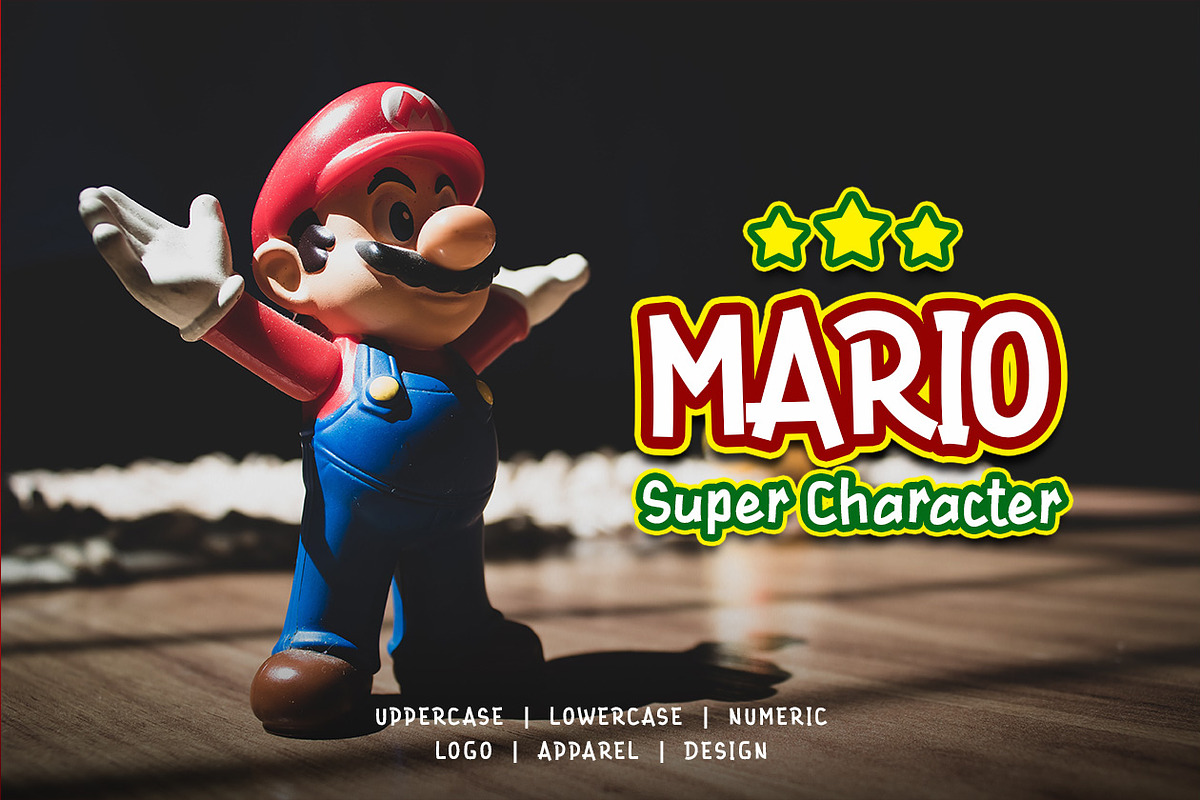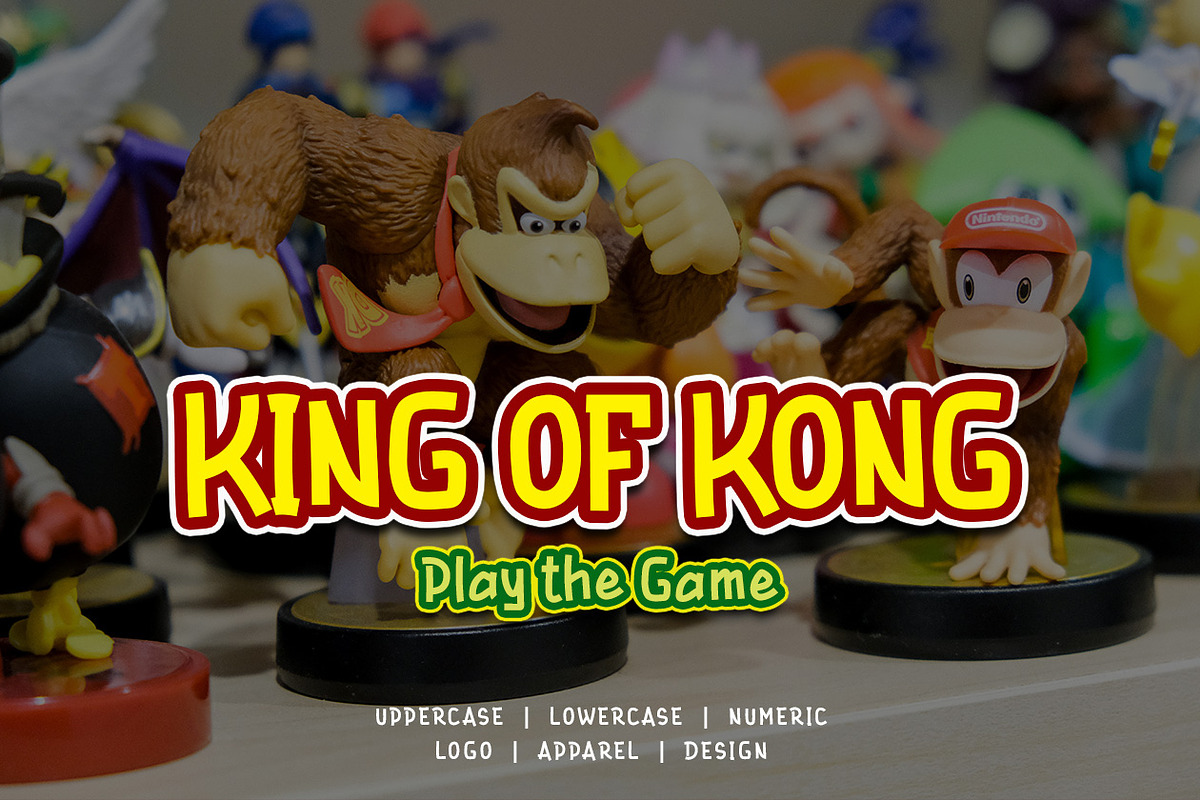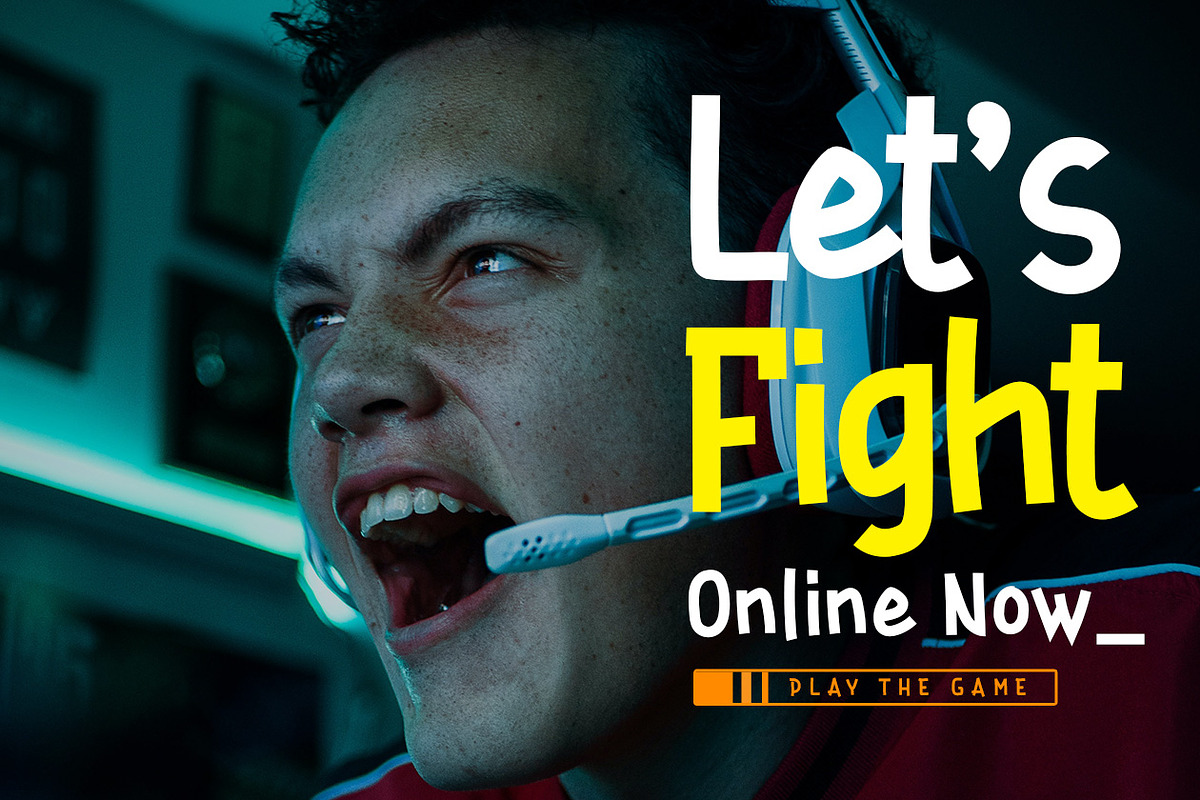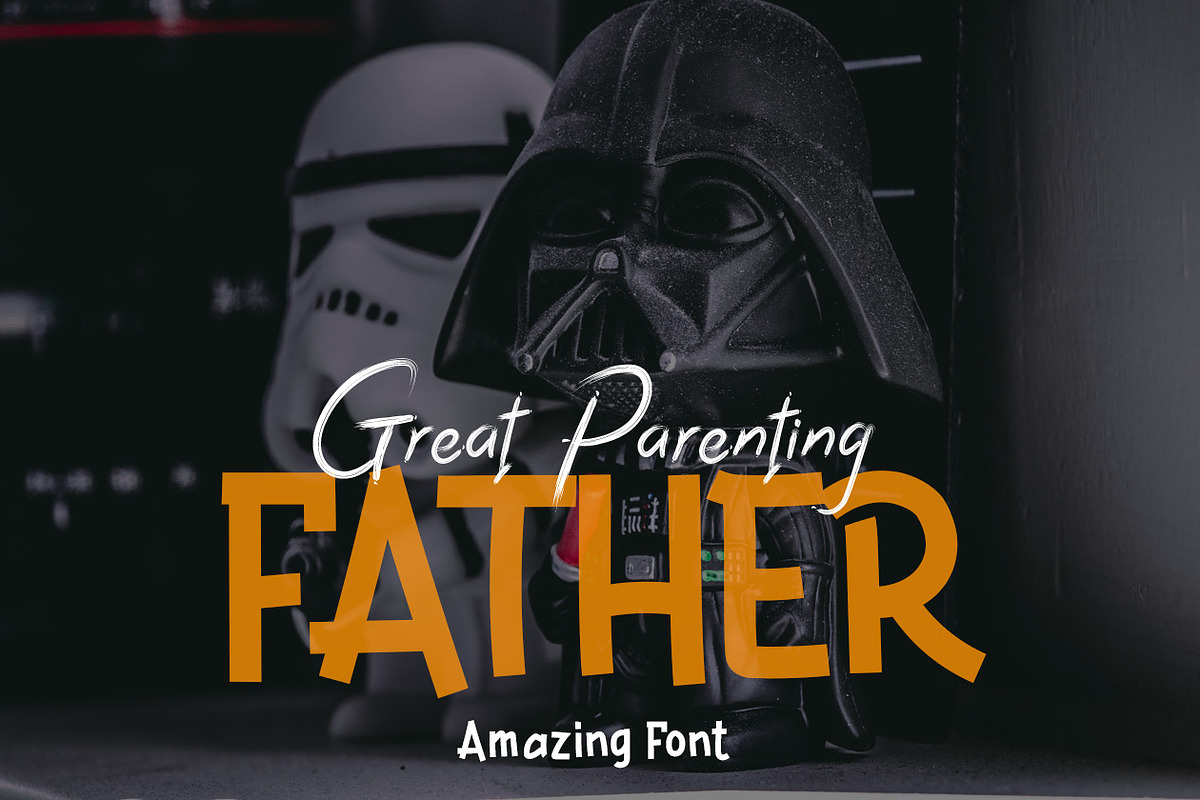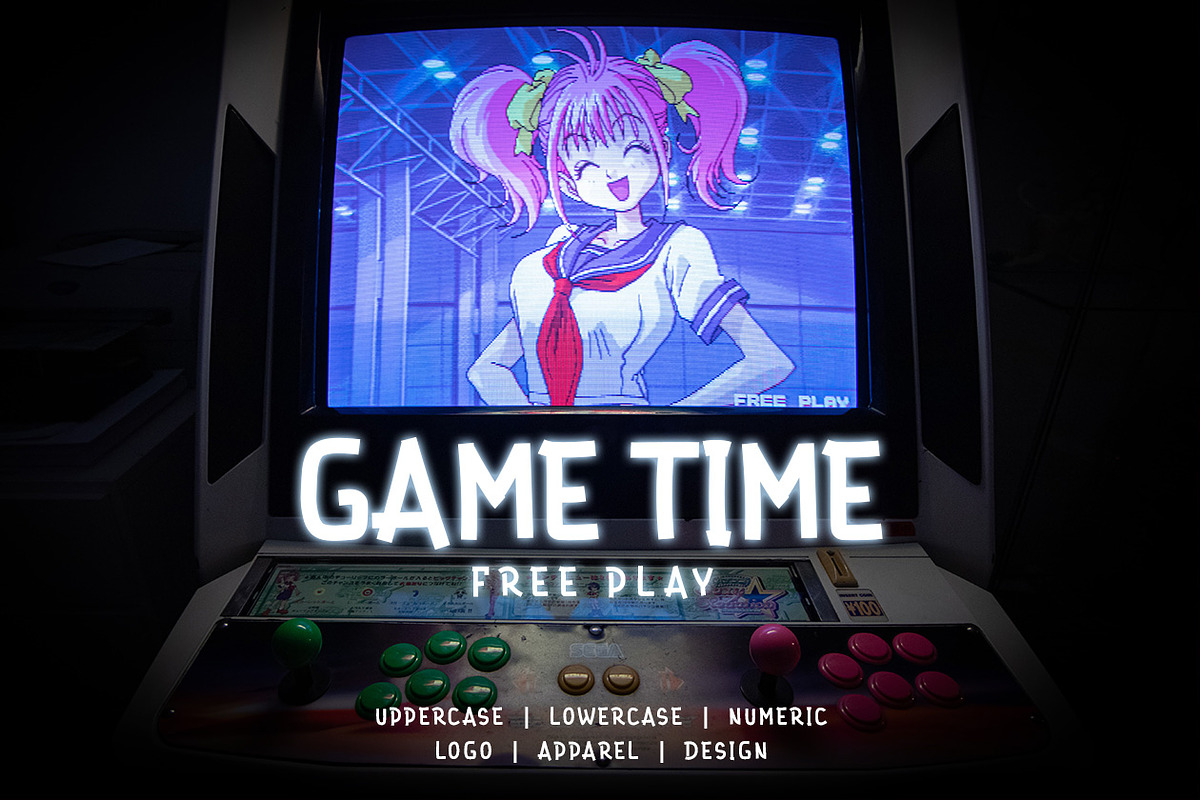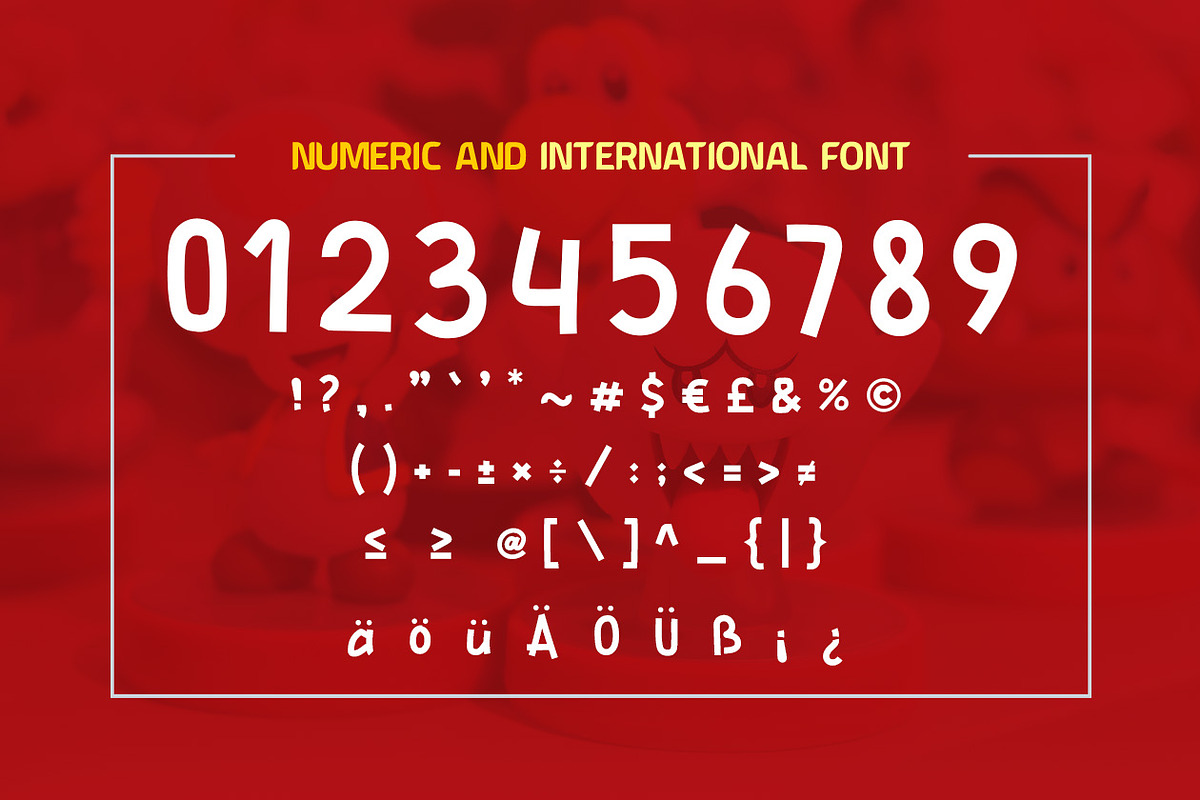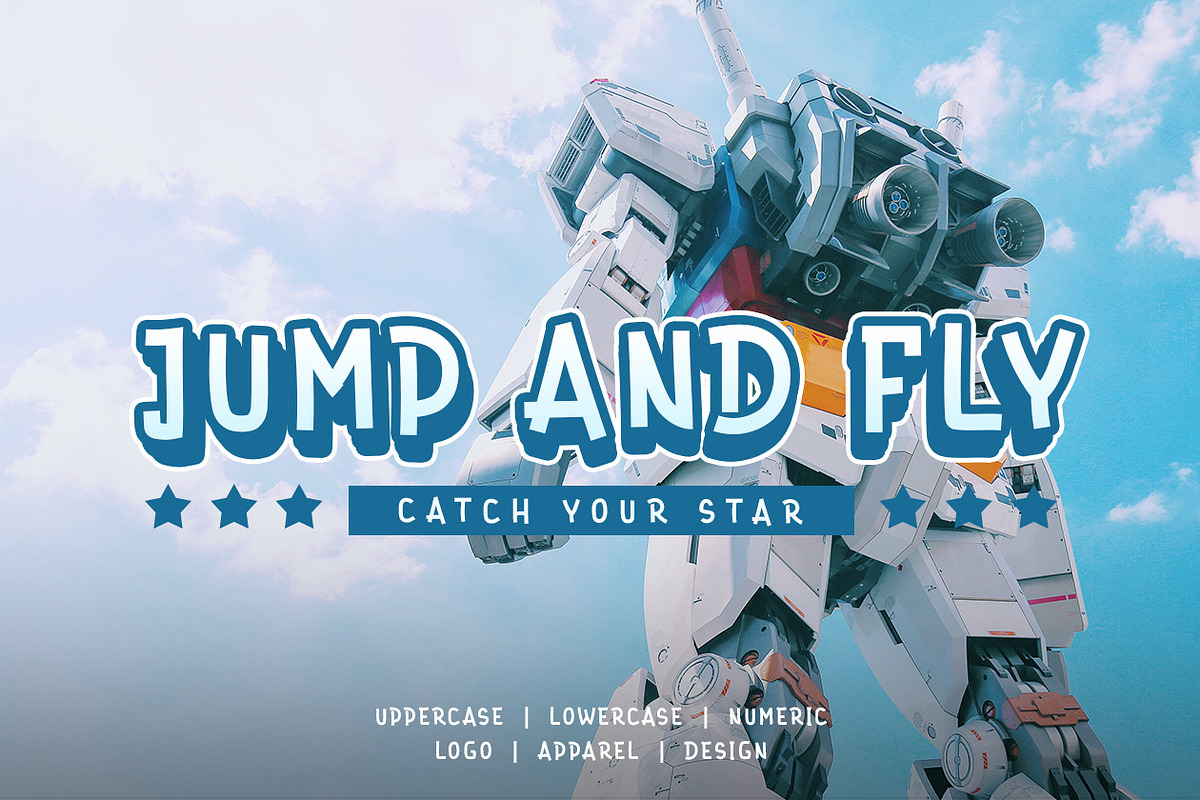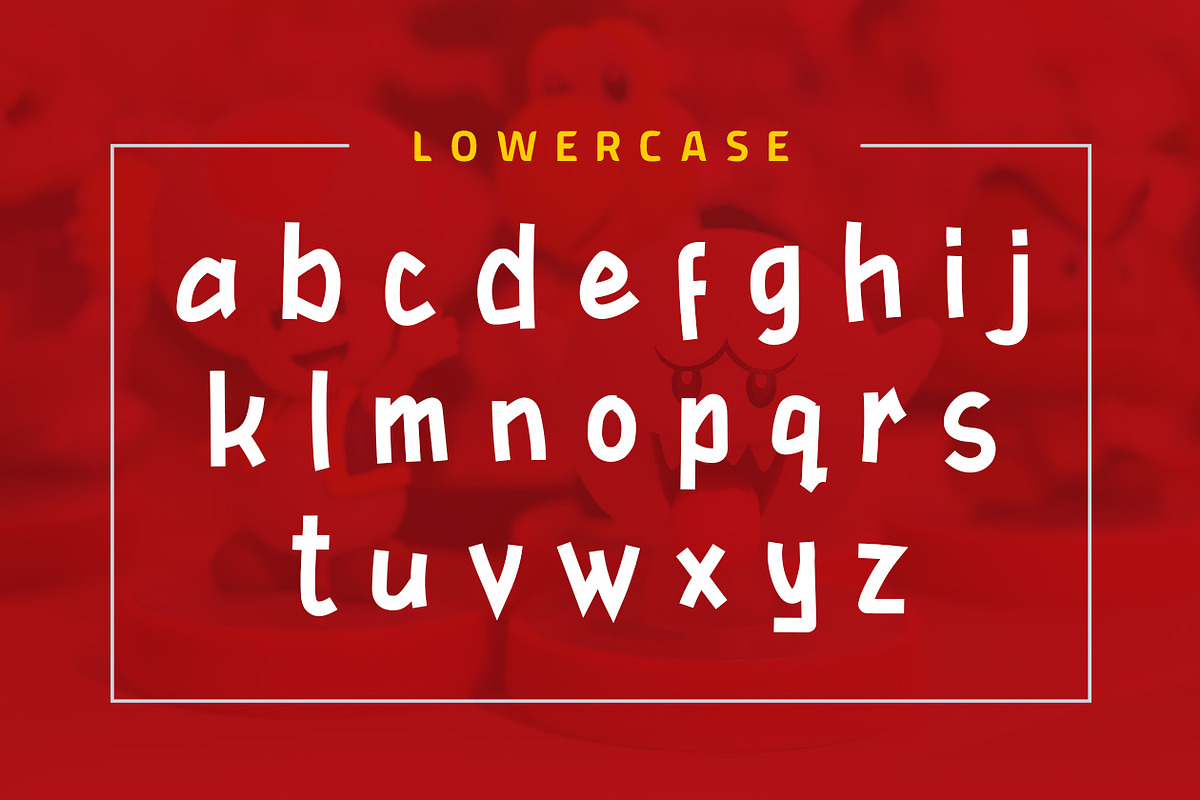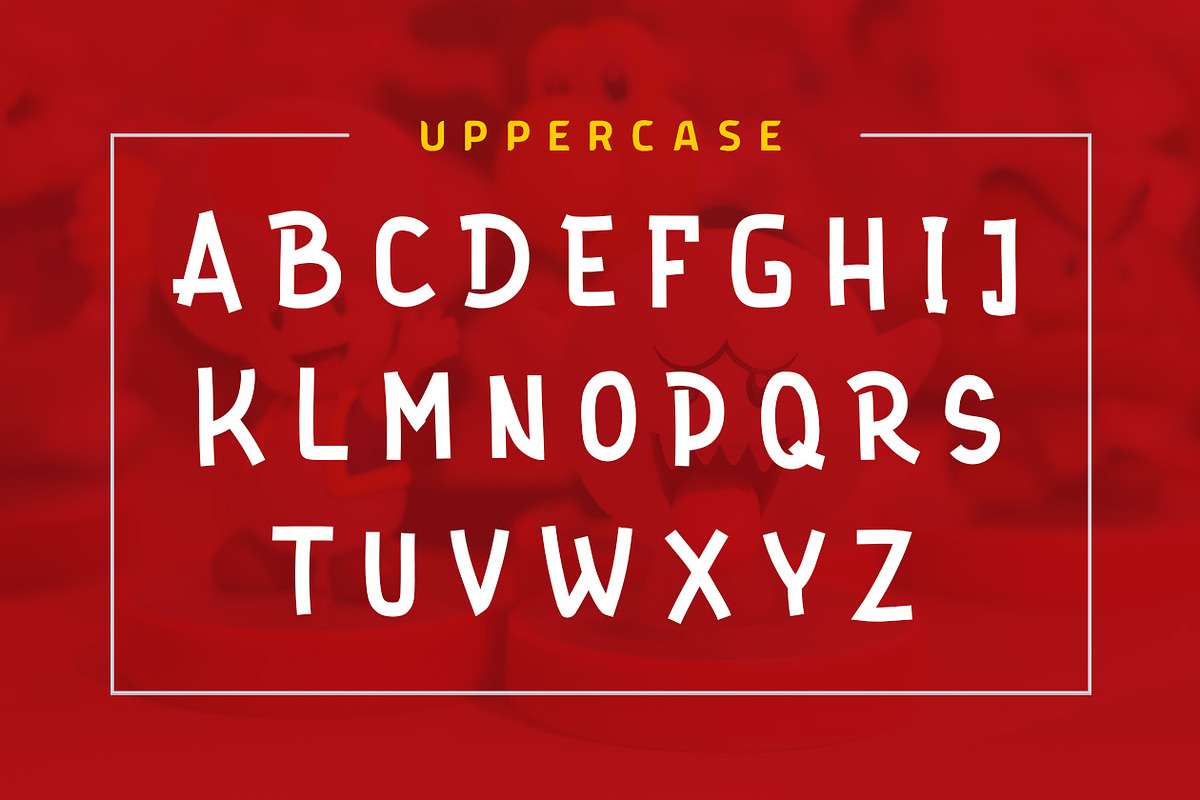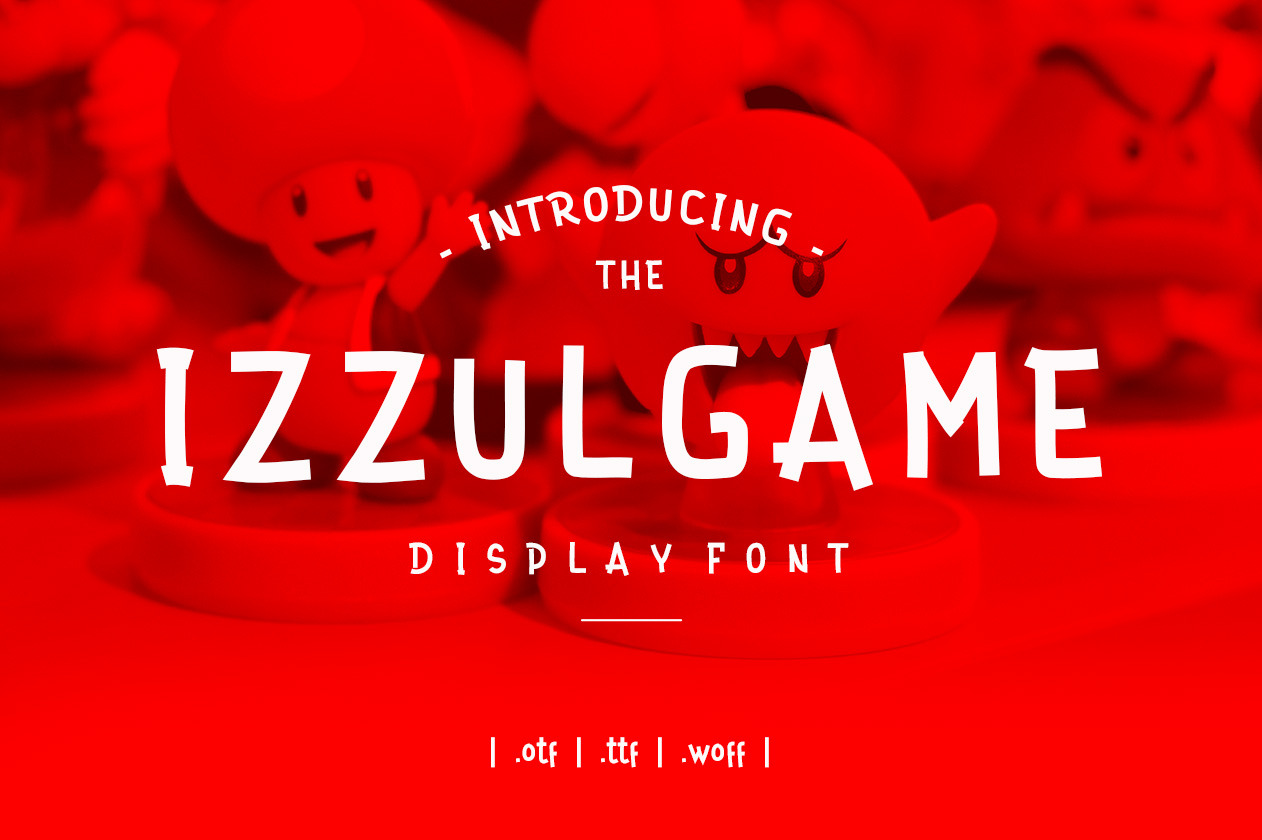
Izzul Game Display Font
Izzul Game Display font very suitable for Game App, poster, for logo, music cover, clothing, and many many cool design projects. Izzul Game Display font is uppercase and lowercas. Numeric and international font.